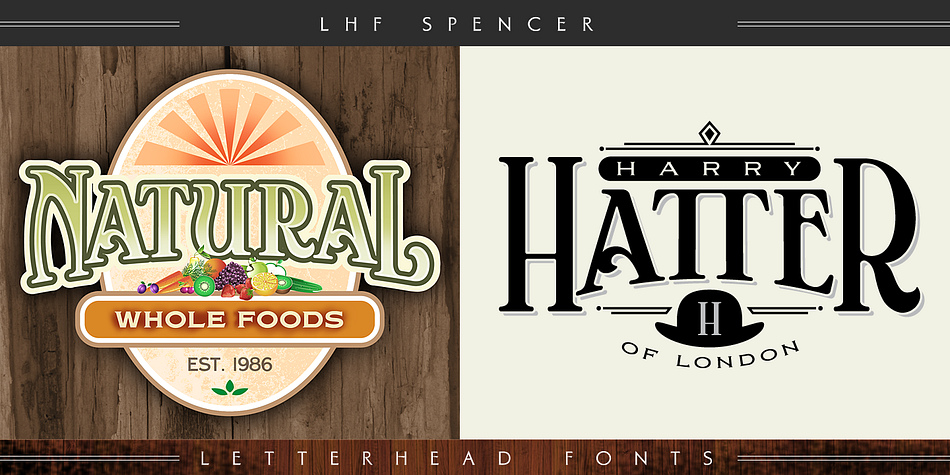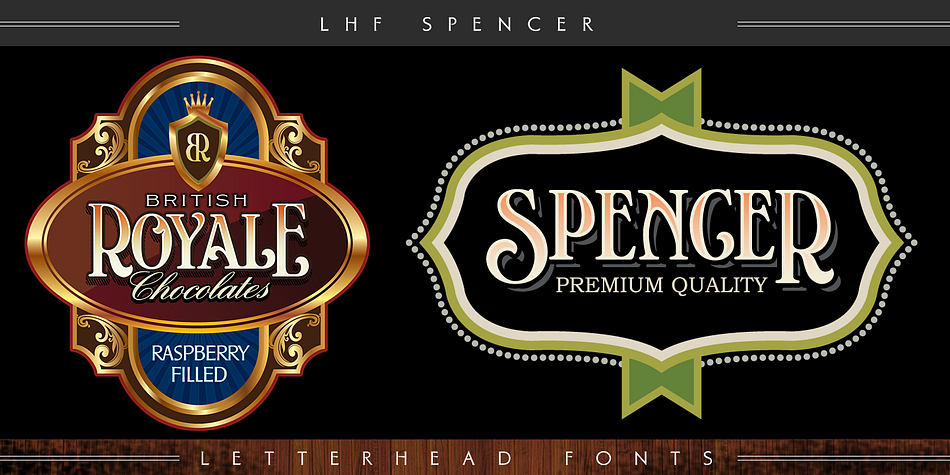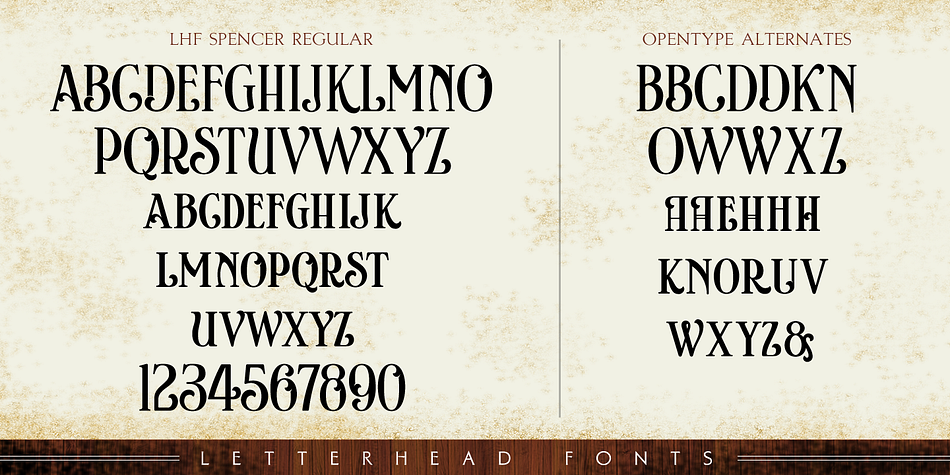
Designed by John Studden, LHF Spencer is a display and display serif font published by Letterhead Fonts.
LHF Spencer exemplifies the quirkiness of late 1800ís lettering. Uppercase is set below the baseline, adding a hand drawn look. Curved swashes juxtaposed with traditional thick and thin strokes make Spencerís letters stand out in a design. Includes 29 OpenType alternates.